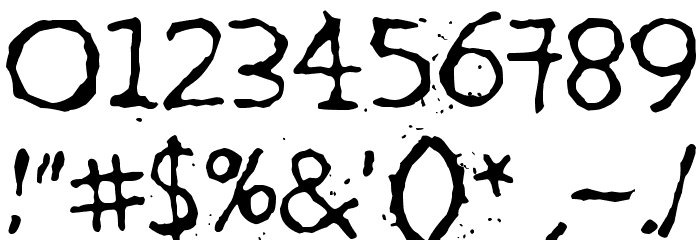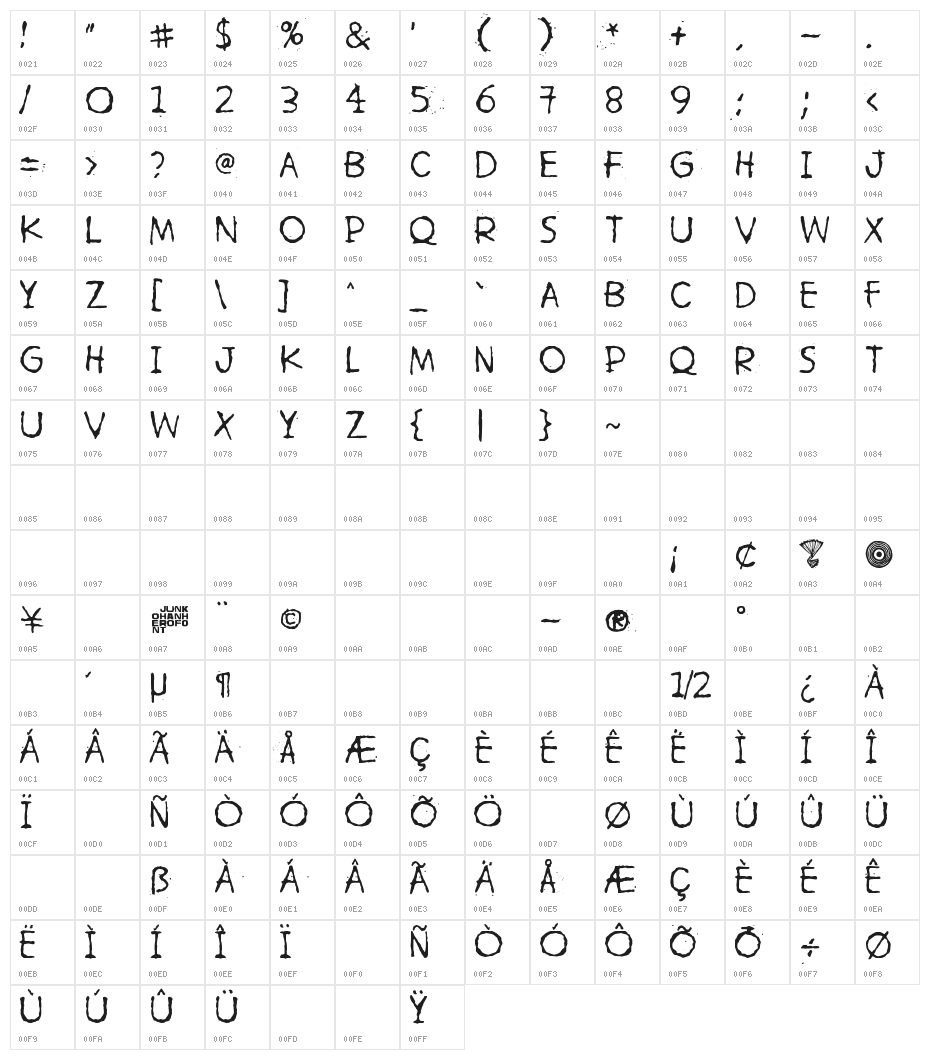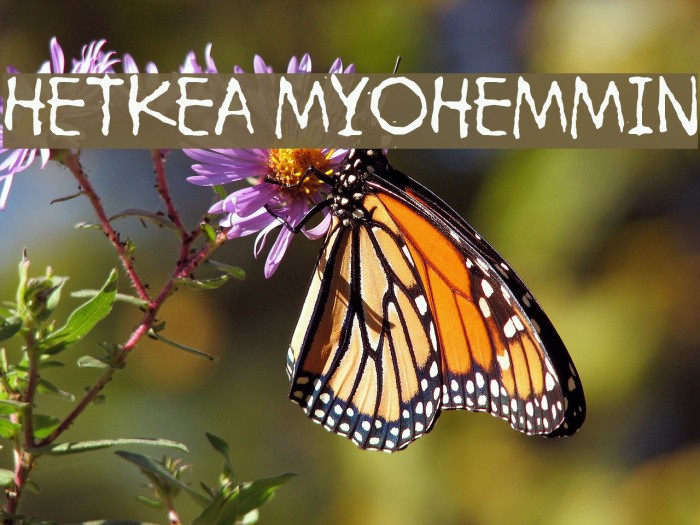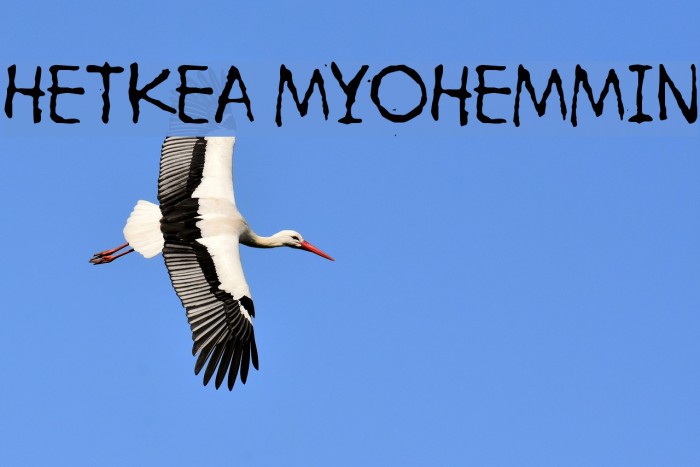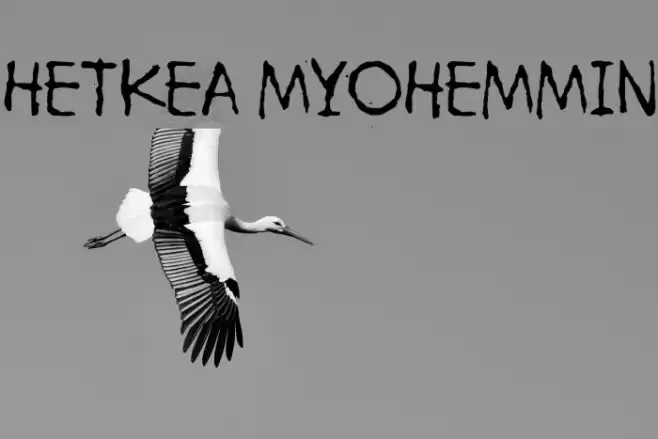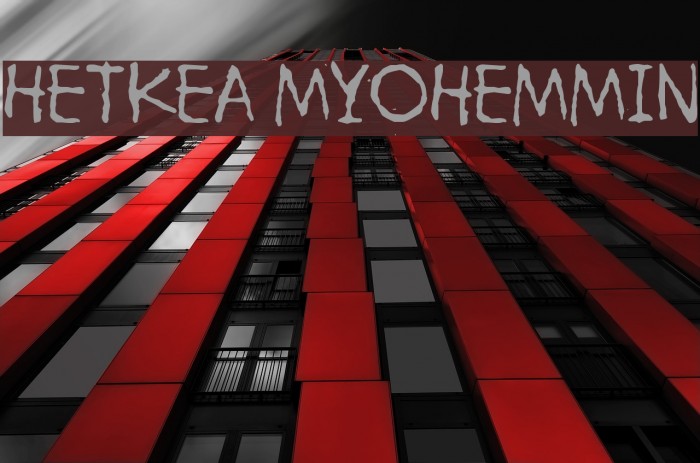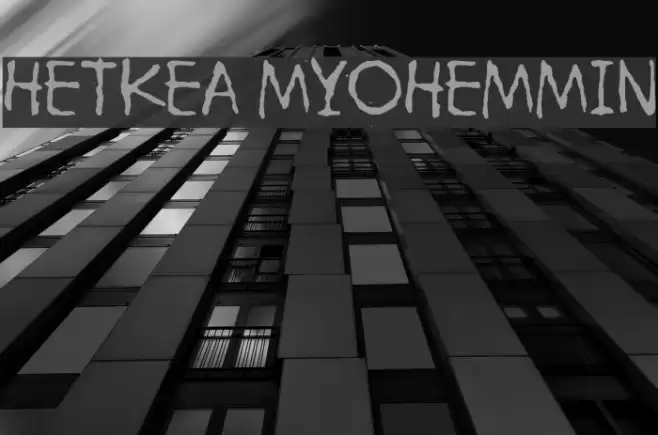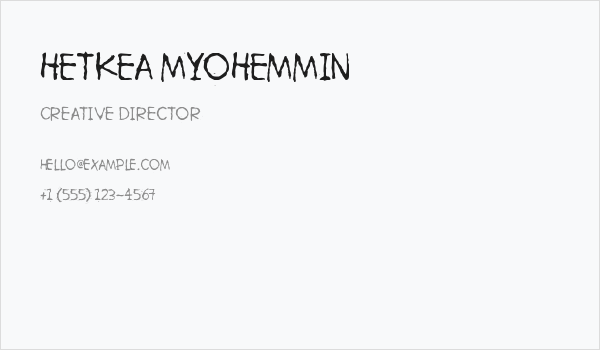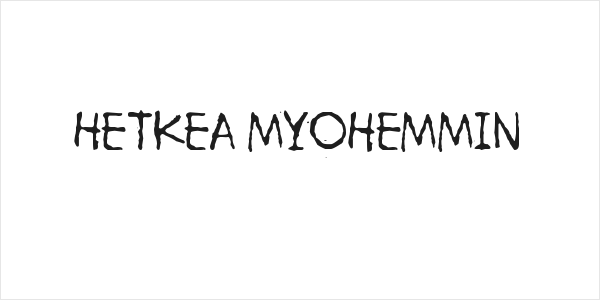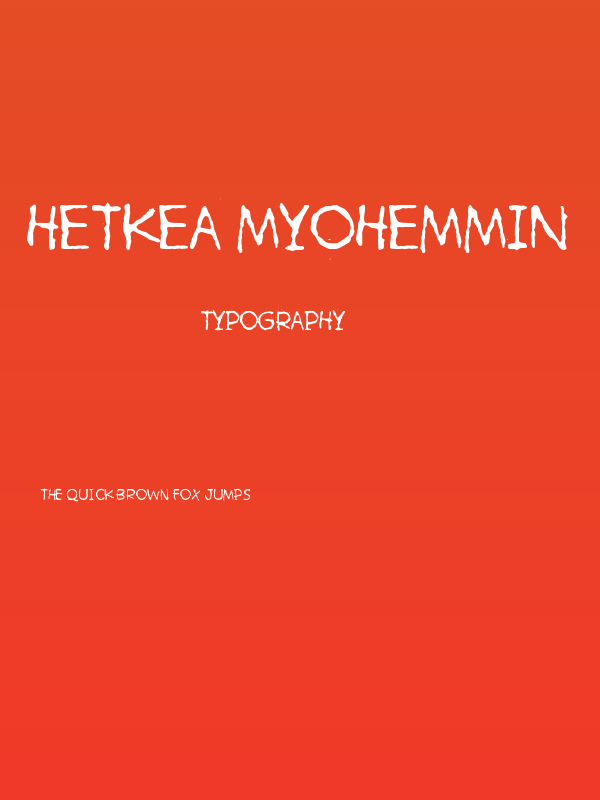
Hetkea Myohemmin Font
Hetkea Myohemmin Description
This font exhibits a rugged and hand-drawn appearance, characterized by uneven strokes and a slightly distressed texture. The letters have a casual, organic feel, as if they were sketched with a brush or pen. The uppercase and lowercase characters maintain a consistent style, with irregular edges and varying stroke widths that add to its unique charm. The numerals and special characters follow the same aesthetic, contributing to a cohesive look. This font's raw and artistic vibe makes it suitable for projects that require a personal touch or an informal, creative atmosphere.
| Use Case | Logos, Posters, Invitations |
| Proposed Projects | Ideal for artistic projects, informal invitations, creative branding, and handmade product packaging. |